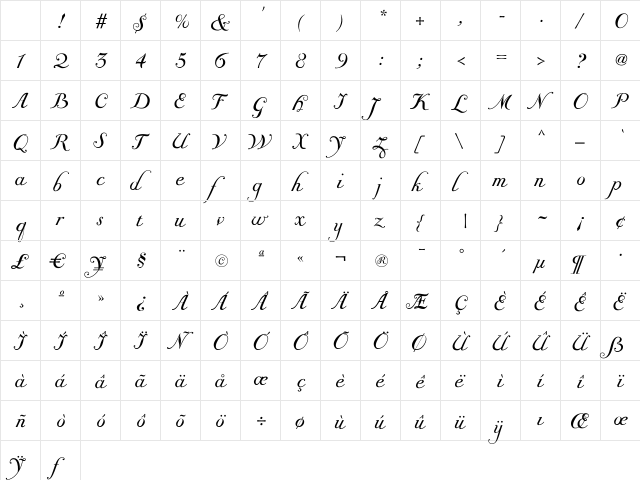
Giambattista One flows with the natural rhythm of handwritten lettering, making it ideal for designs that call for warmth and personal expression.
Font Pairing: Combine Giambattista One with a simple geometric sans for maximum contrast - the tension between flowing curves and clean structure is a classic typographic pairing.
Pro Tip: Use Giambattista One for short runs of text - names, titles, or taglines. Extended body copy in script faces tires the eye quickly.